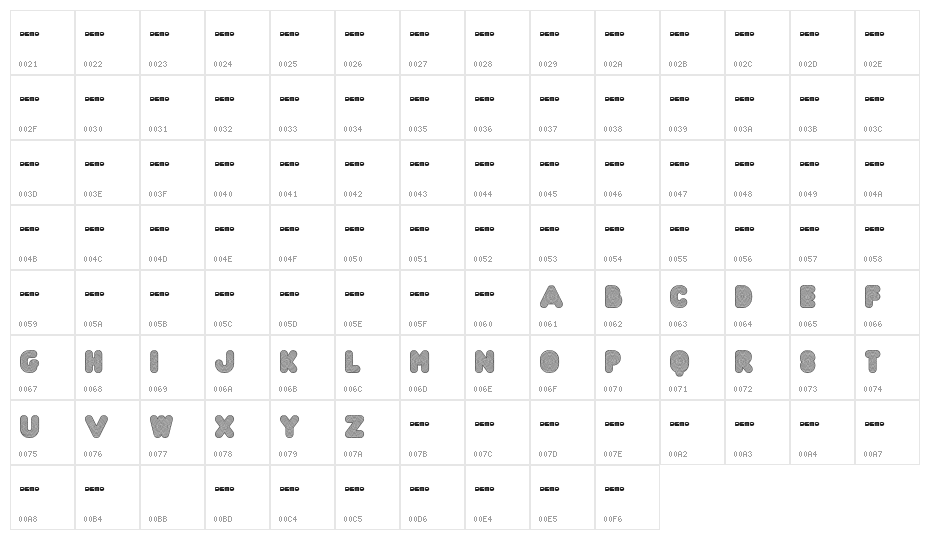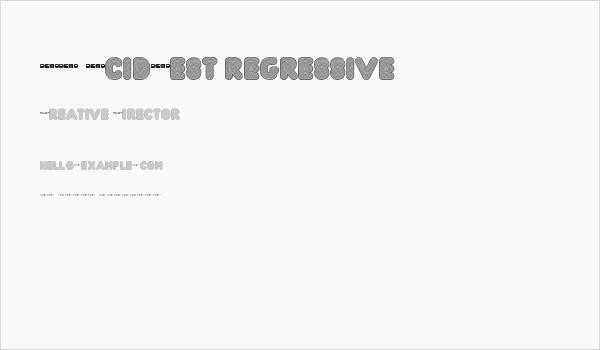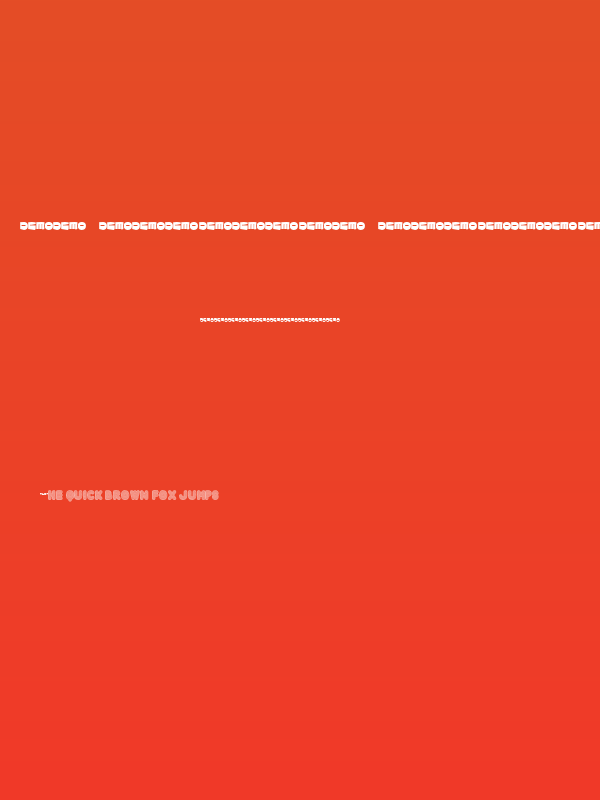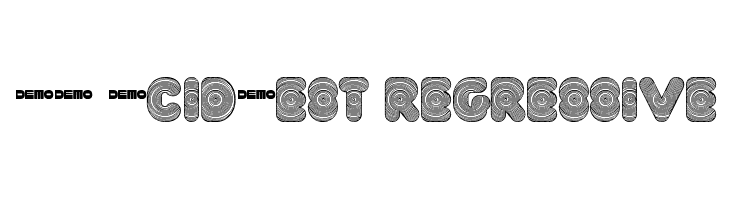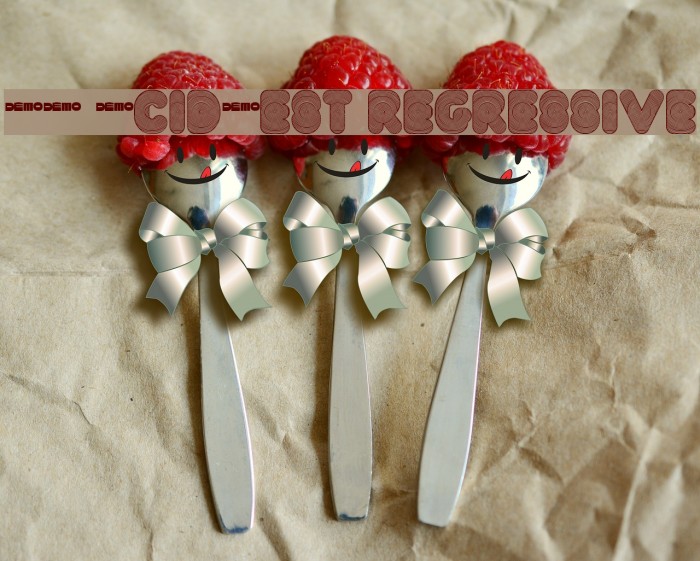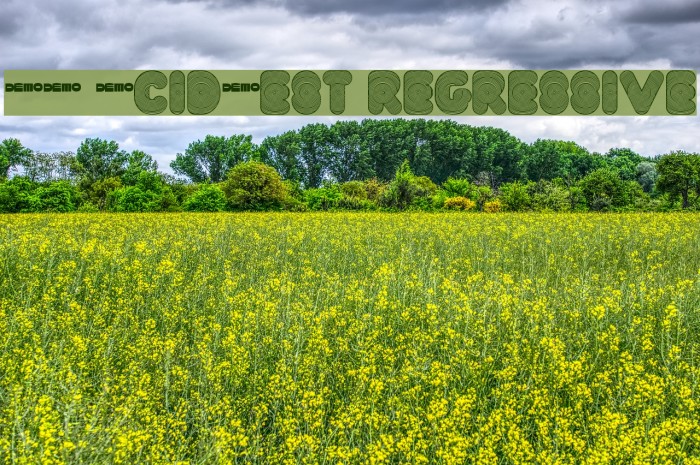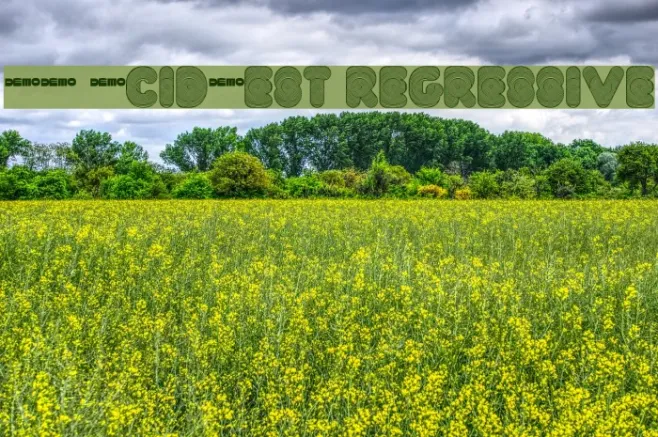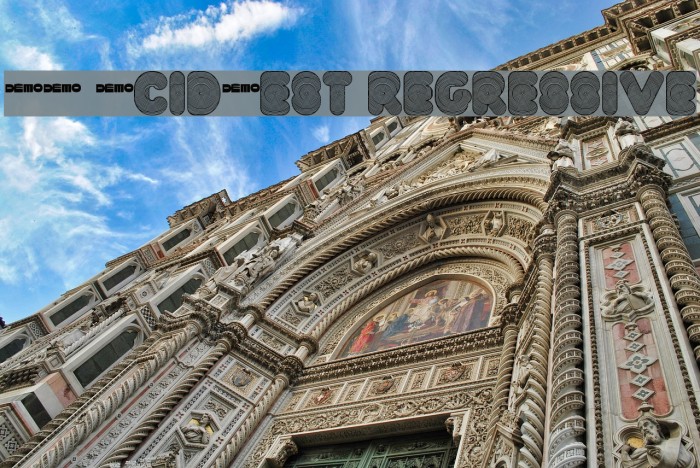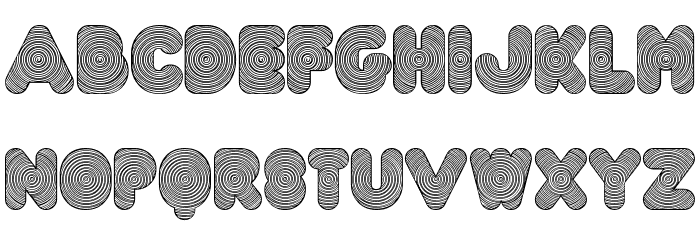
FT AcidTest regressive Font
FT AcidTest regressive Description
This font features a unique, concentric circle pattern that gives each letter a bold, eye-catching appearance. The design is highly decorative, with each character composed of multiple layers of lines that create a sense of depth and movement. The uppercase letters are particularly striking, with a playful yet structured form that stands out in any design. The font's intricate detailing makes it ideal for projects that require a distinctive and artistic touch. Its bold and decorative nature suggests a modern and experimental style, perfect for creative applications.
| Overall Style | Modern, Decorative |
| Proposed Projects | Ideal for poster designs, album covers, branding projects, and any creative work that requires a standout, artistic font. |